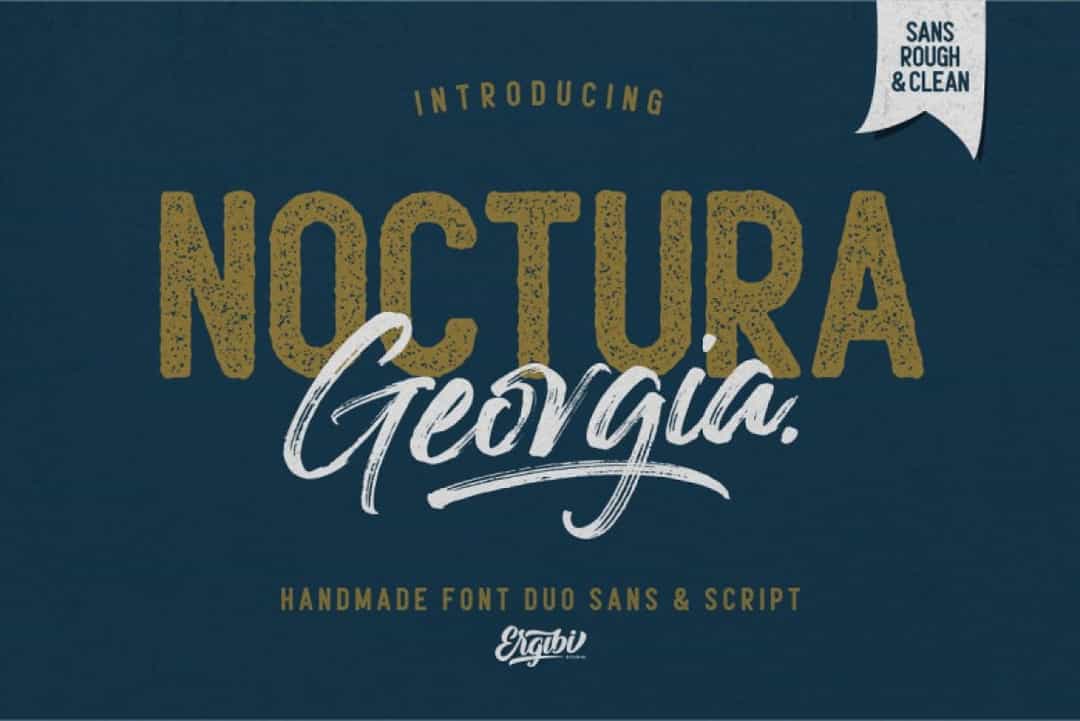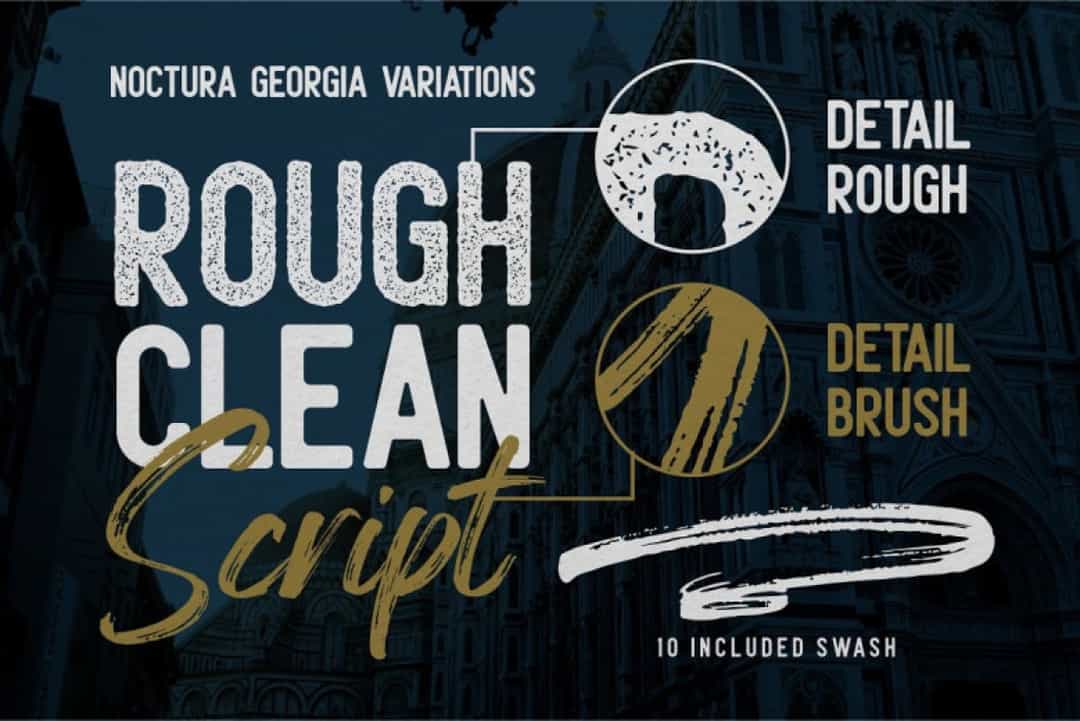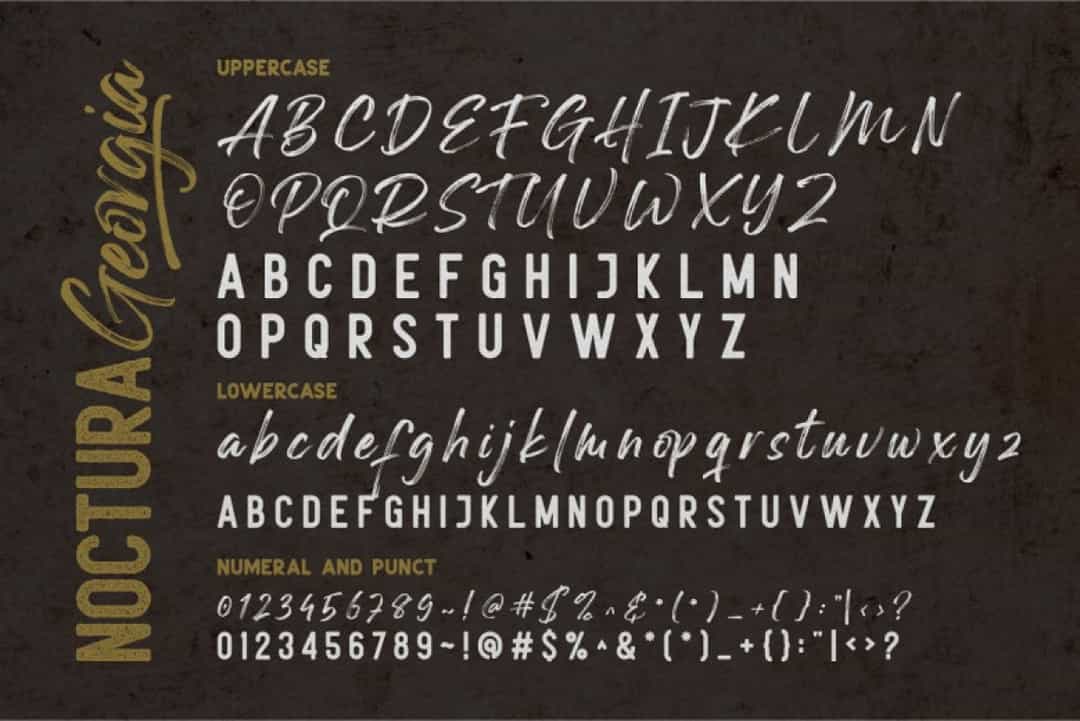
Noctura Georgia font is an innovative combination of handwriting and brush strokes with sans serif characteristics that mimic real world appearance. Inspired by urban style and offered with multiple branding options for any of your future projects.